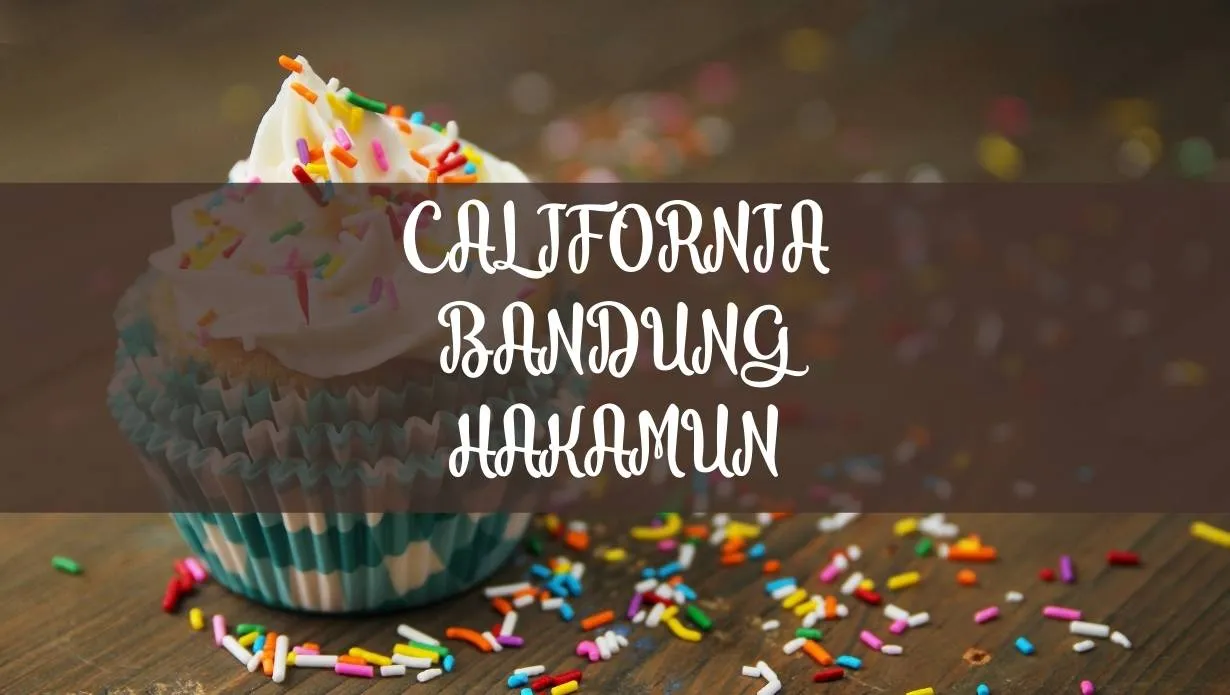
Vanilla Daisy Font is an exquisite, handcrafted font suitable for any project! This tutorial will equip you with all the necessary details to effectively utilize this font in your upcoming project.
- Vanilla Daisy Regular